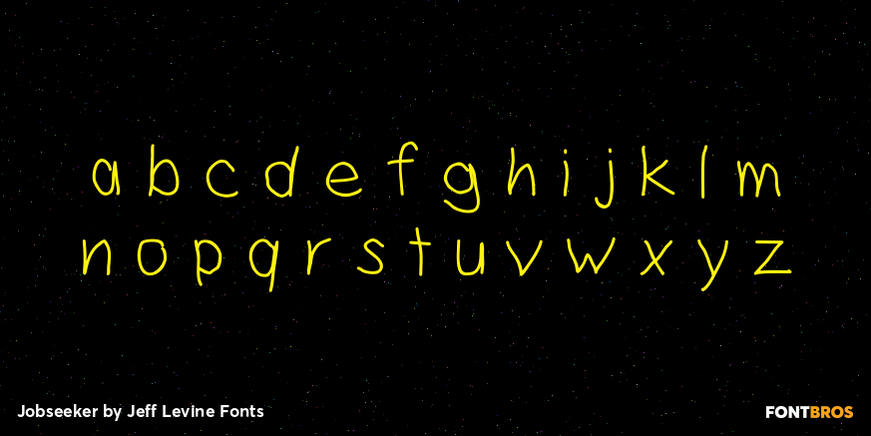
Jobseeker
At one time or another, everyone has filled out a job application. Jobseeker JNL emulates a hand-printed alphabet and numerals as one would find on such forms, but it is also useful for any project where a simple handwritten block print is needed.